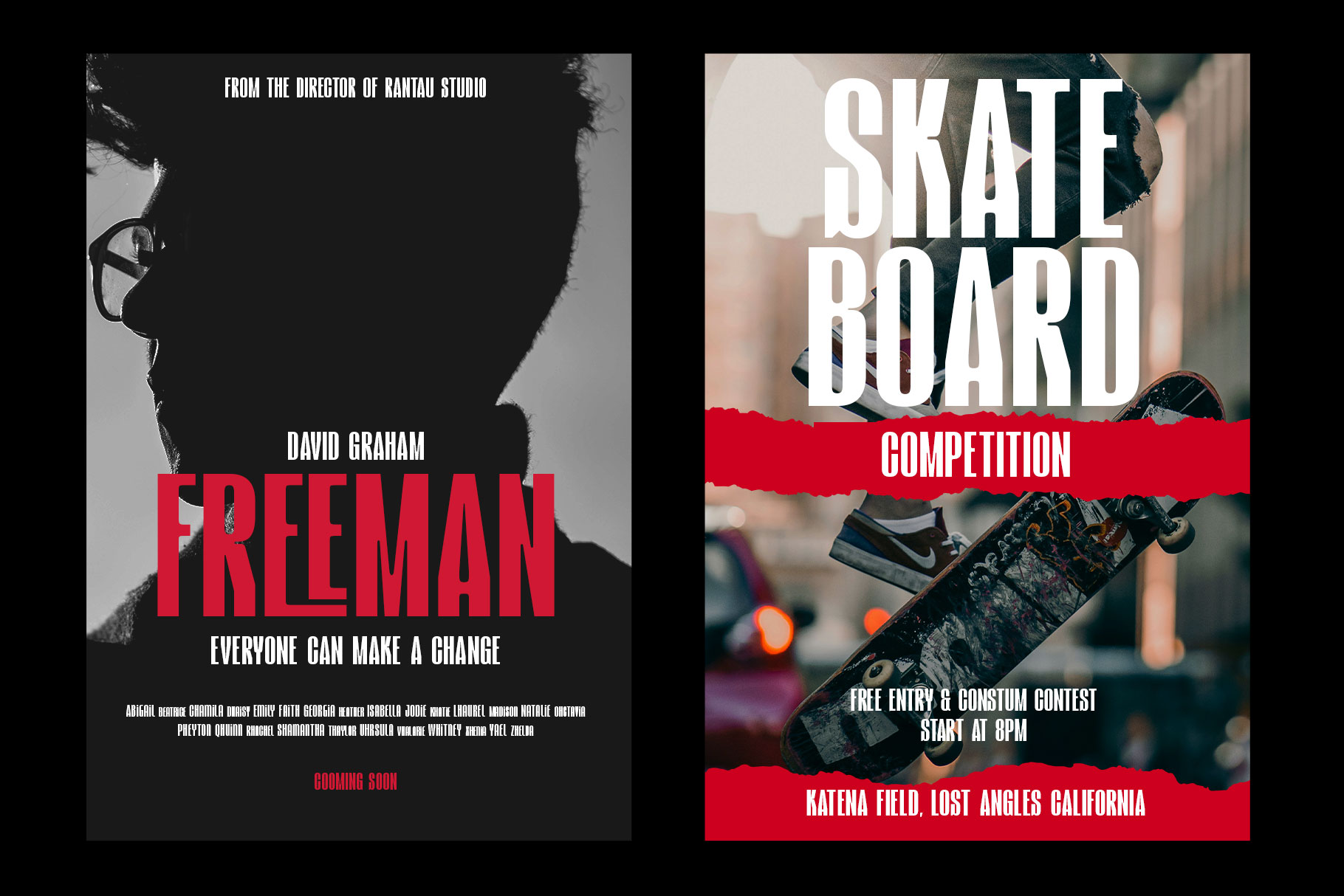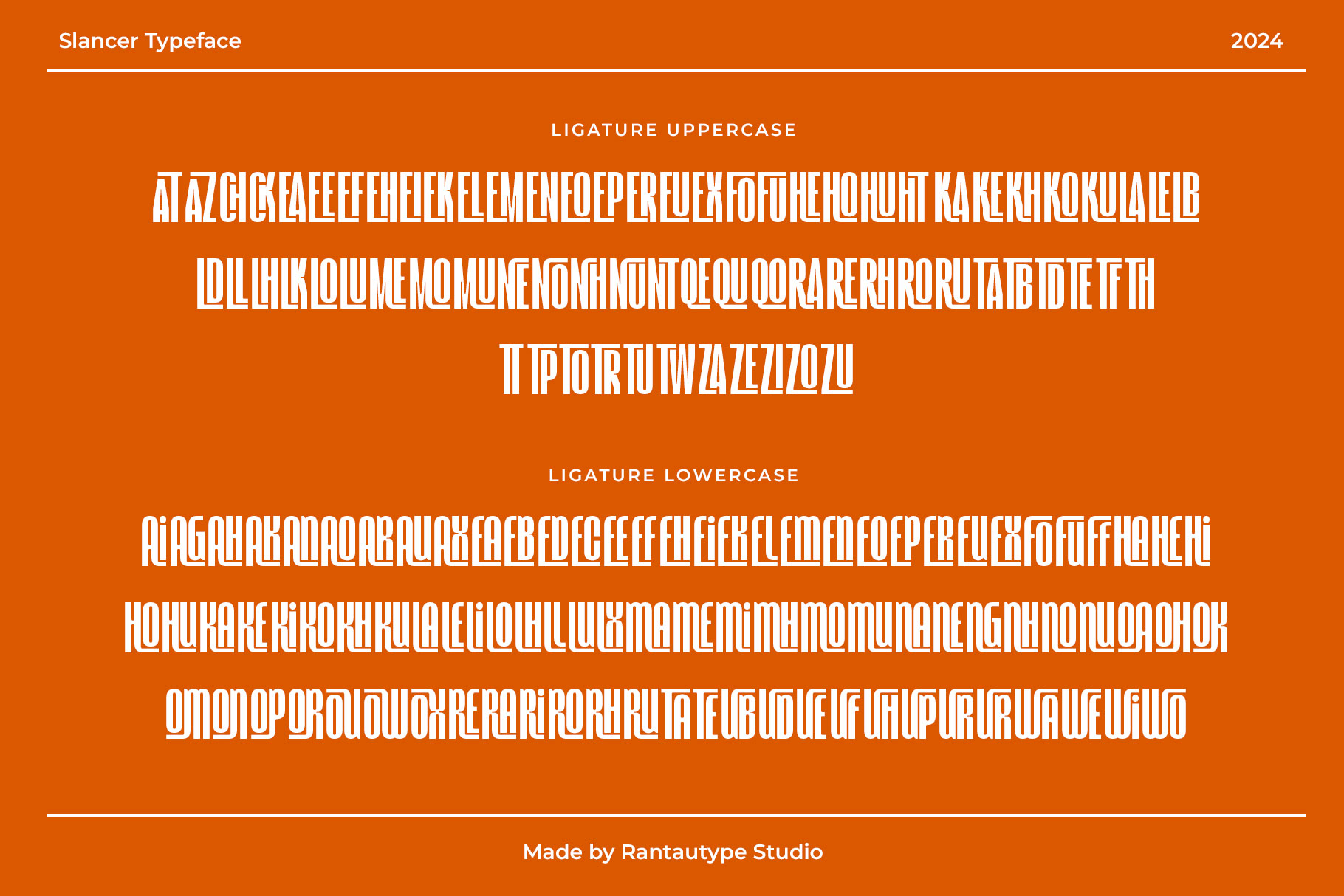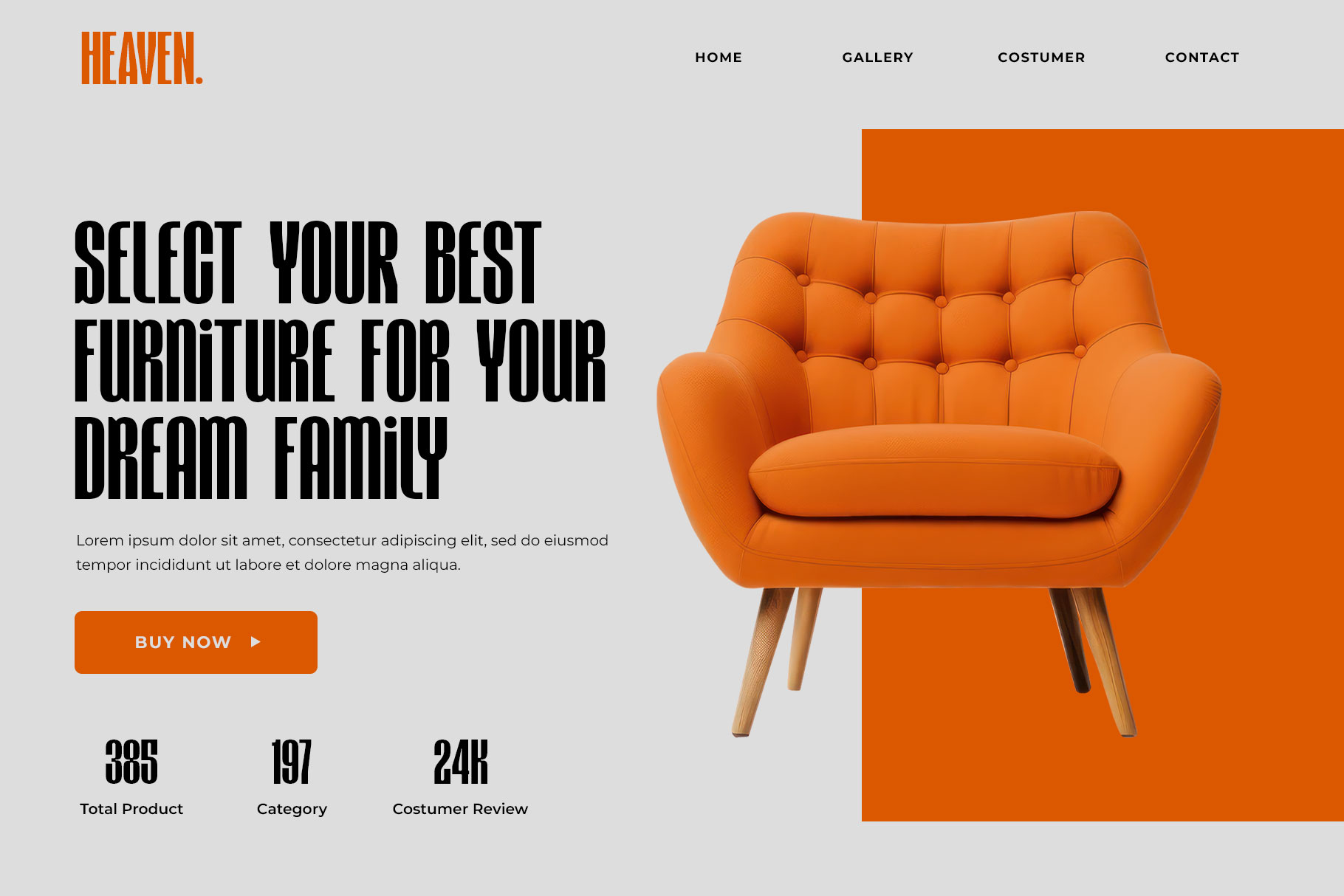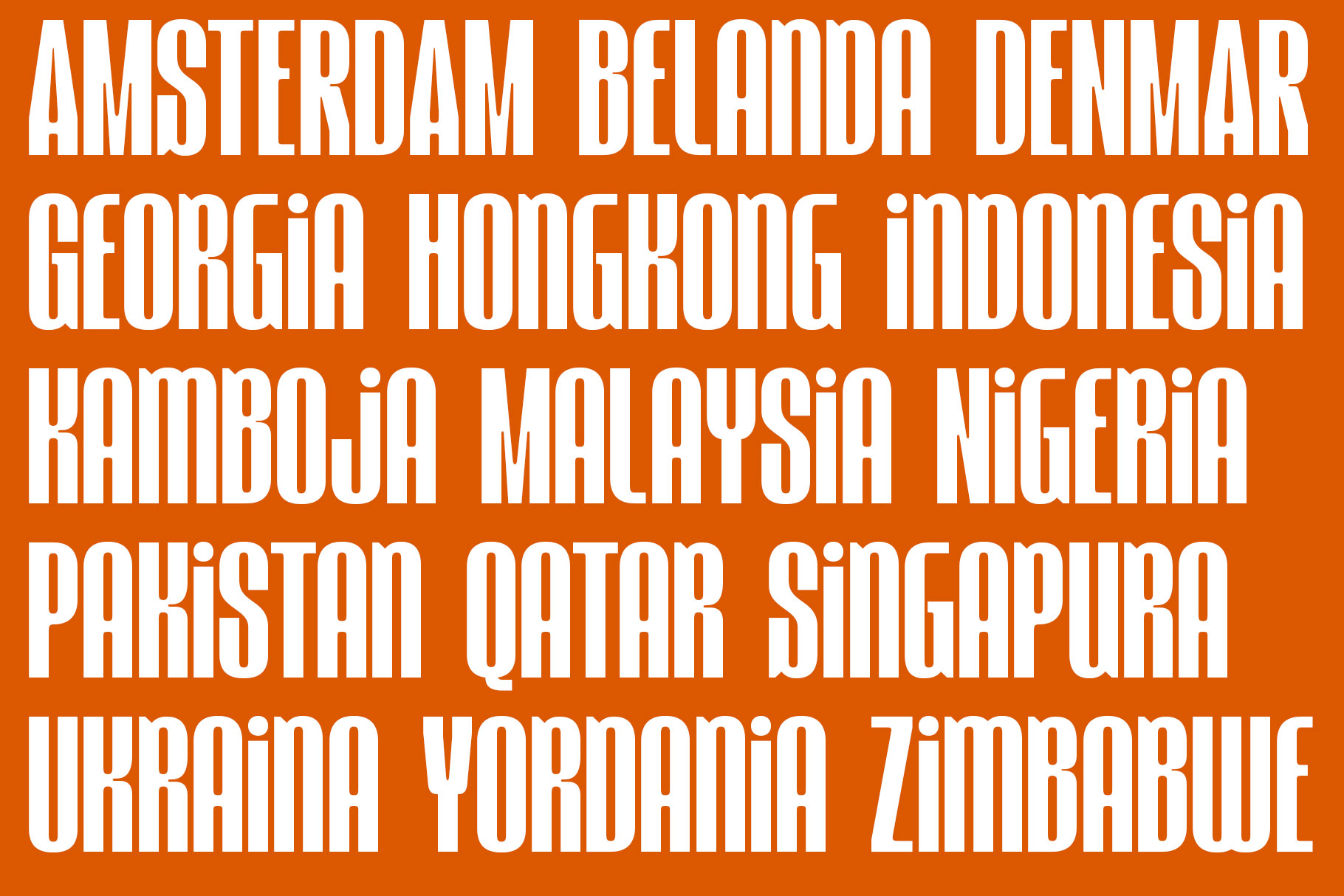
Slancer Condensed Typeface
Slancer is Bold condensed visual typeface with fresh soft character form. Inspire by retro movie and teatre display design. Slancer come with 2 style ( reguler and italic), alternate, ligature and support multilingual character.
Slancer is a perfectly choice for any creative endeavor, chic, lifestyle design such as logos, advertisements, watermark on photography, stationery, branding project, display and magazine, invitation, corporate brand, product design, label, business project and many other project.